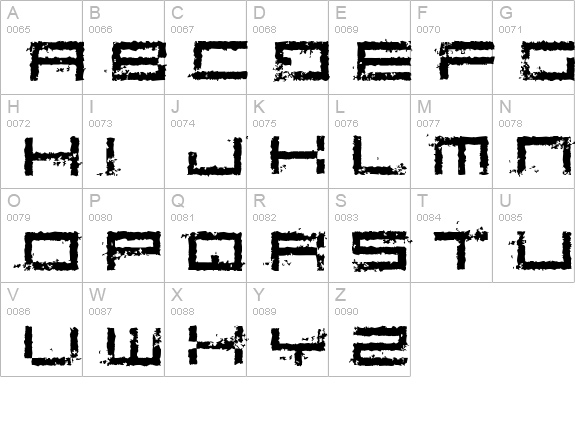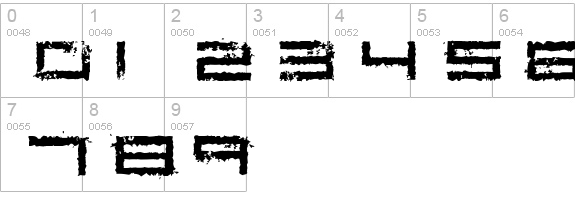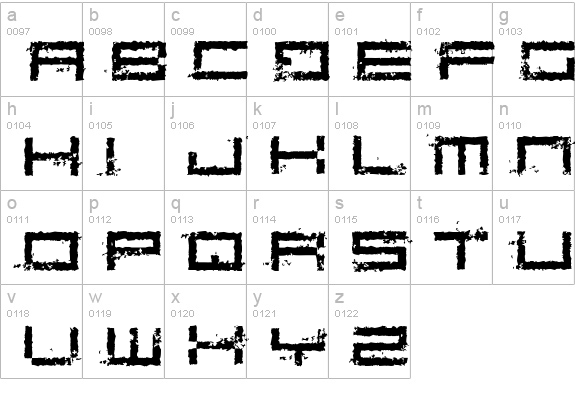
Rusting Robotica Font Details
Rusting Robotica, a futuristic and edgy font, captures the essence of a dystopian world where technology reigns supreme. Its bold and angular letterforms evoke a sense of mechanical precision, while the distressed and weathered texture adds a touch of gritty realism. This unique typeface is perfect for projects that require a touch of industrial charm and a hint of decay. Whether you're designing a poster for a cyberpunk event or creating a logo for a tech startup, Rusting Robotica will make your work stand out from the crowd. But what makes Rusting Robotica truly special is that it is free. Yes, you read that right – this remarkable font is freely available to download at FontsMarket.com. Now you can bring the power and allure of Rusting Robotica to your designs without breaking the bank. So don't hesitate, unleash your creativity and discover the captivating world of Rusting Robotica. Download this incredible font today and let it transform your designs into a futuristic masterpiece.